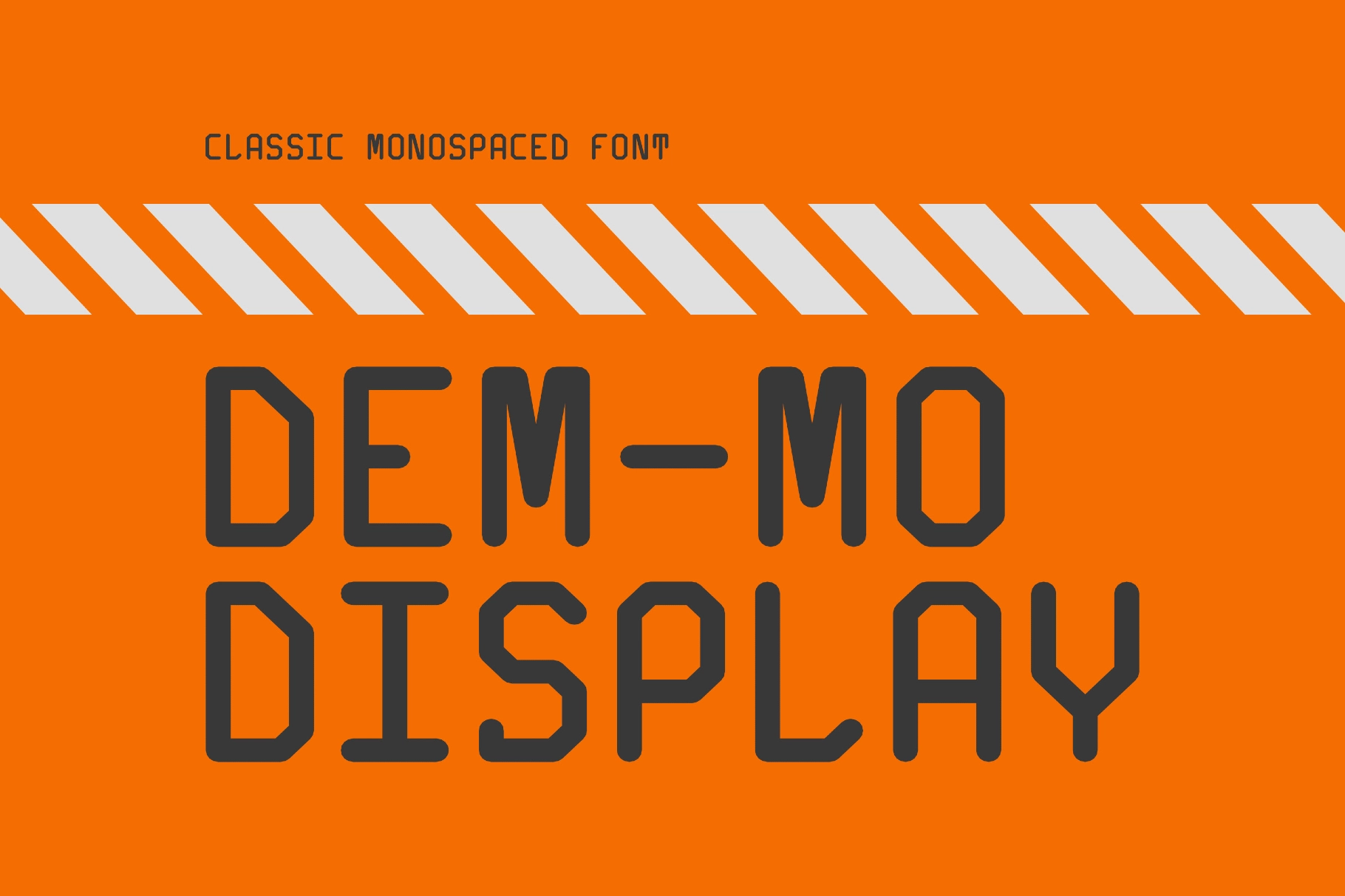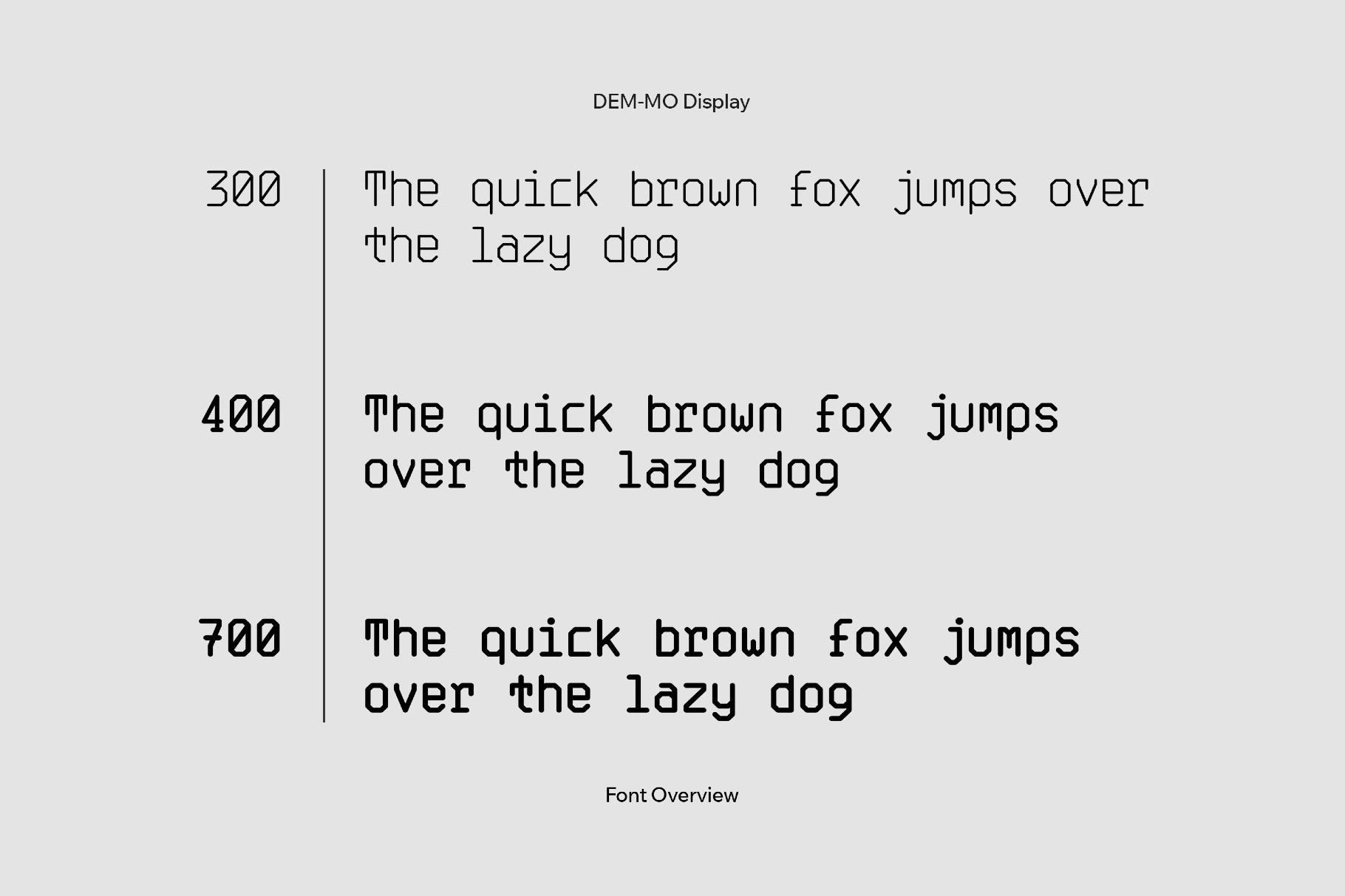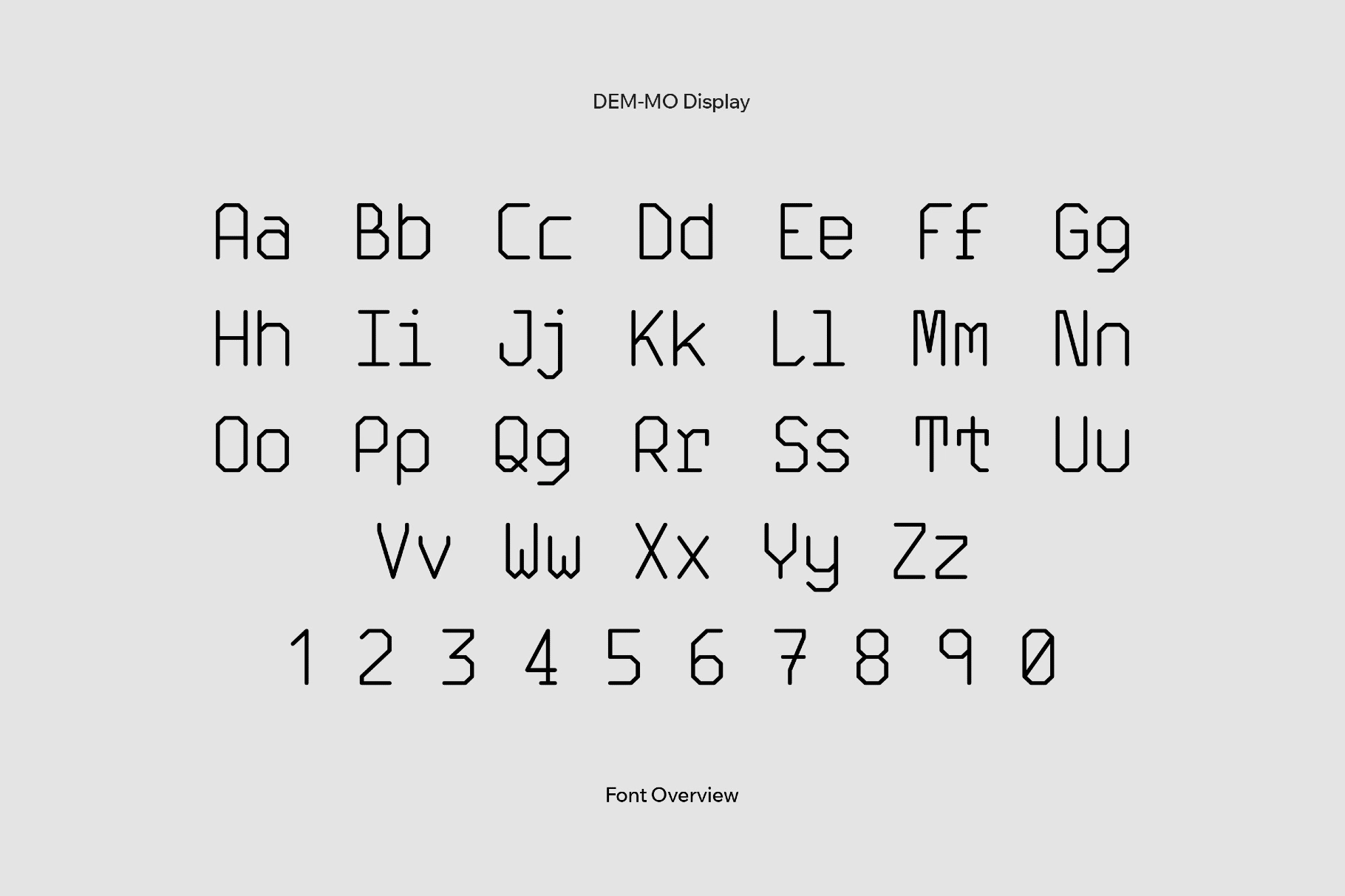
DEM-MO Display
DEM-MO is a modular monospaced display with arcade swagger and tabletop grit. Its straight segments, clipped corners, and evenly spaced strokes build a rigid, engineered rhythm that looks deliberate and almost machine-formatted.
Use it for retro game menus and HUDs, RPG rulebooks and character sheets, stream overlays, badges and enamel pins, event posters for game jams, sci-fi props and interface mockups, pixel-art websites, packaging for collectibles, stickers and patches, and electronic music covers.